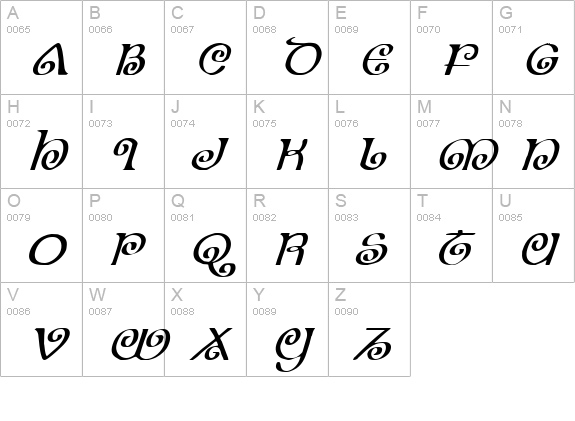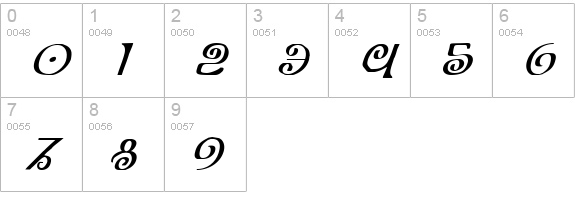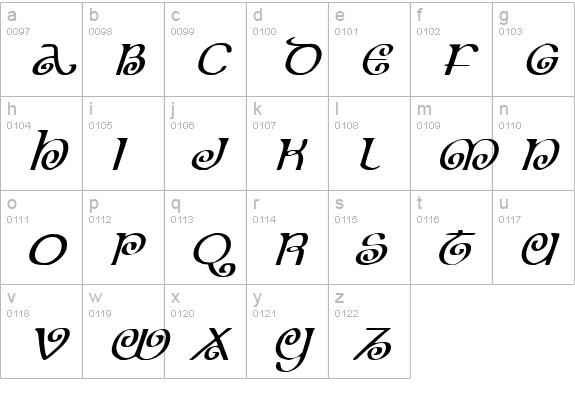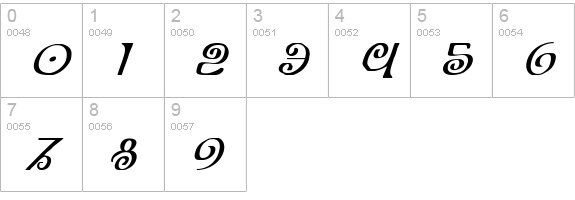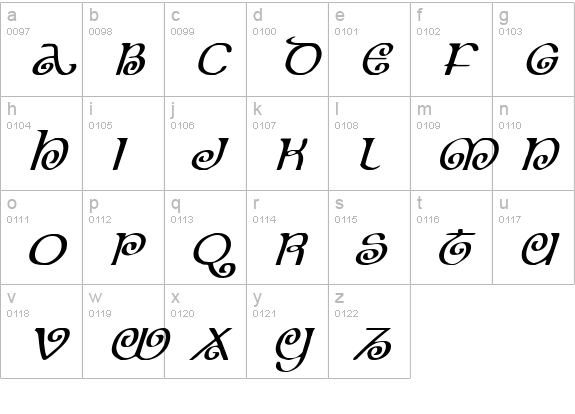
The Shire Italic Font Details
The Shire Italic is a distinctive, italic variant in the The typeface family \xE2\x80\x94 well suited to design and typography projects.
The Shire Italic font exudes a charming and whimsical elegance, perfect for adding a touch of fantasy and magic to your designs. Its graceful italic letterforms are inspired by the enchanting landscapes of J.R.R. Tolkien's Middle Earth, transporting your audience to a world of adventure and wonder. This font is a versatile choice for a wide range of projects, from book covers and invitations to branding and packaging. Its flowing lines and delicate curves create a sense of movement and grace, while still maintaining readability and clarity. Best of all, The Shire Italic font is available for free download at FontsMarket.com. Embrace the spirit of the Shire and infuse your designs with a touch of whimsy and magic with this enchanting typeface.